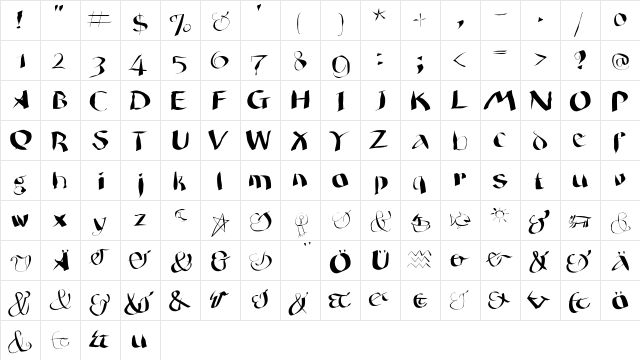
WildQuill Regular
Design Context for WildQuill Typeface
WildQuill is a composed and adaptable typeface that performs quietly and consistently across a wide range of design contexts.